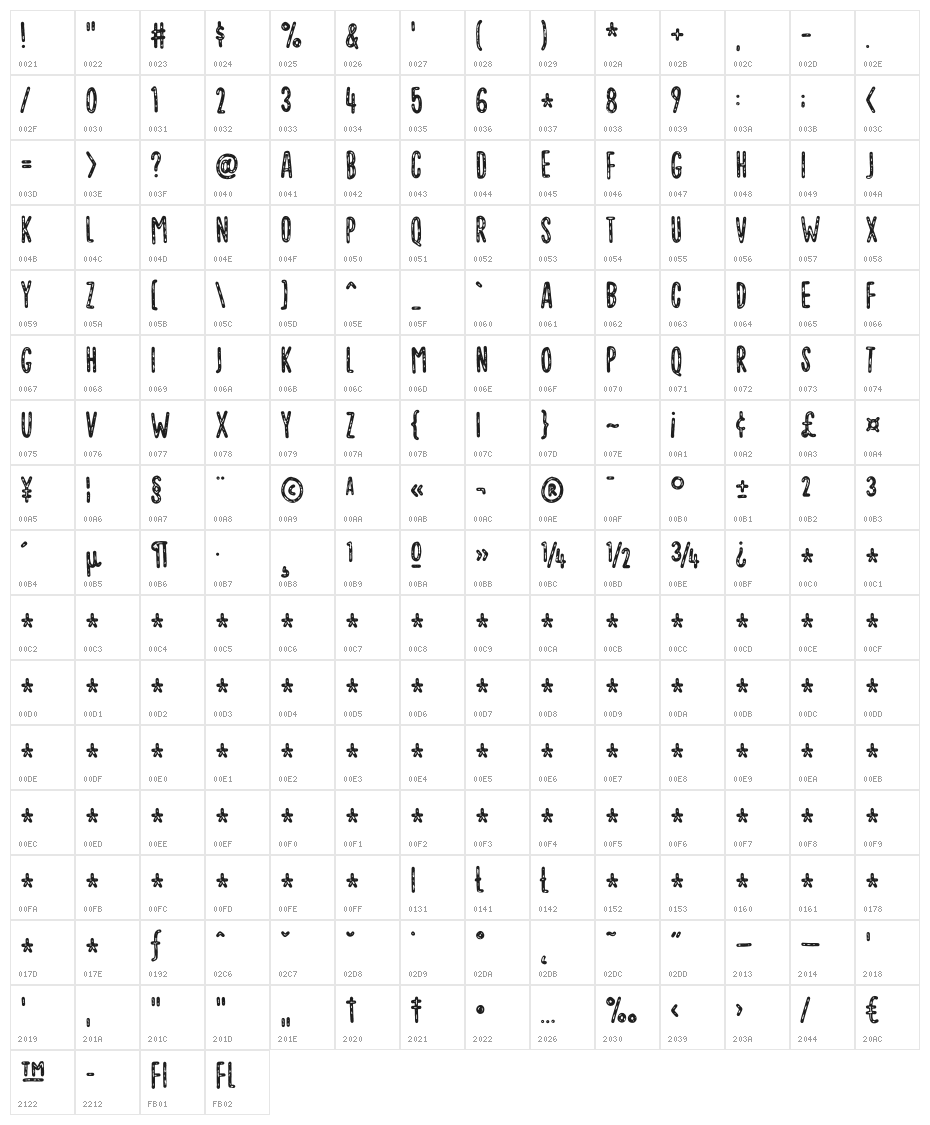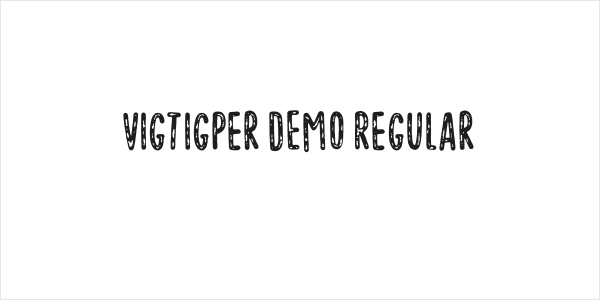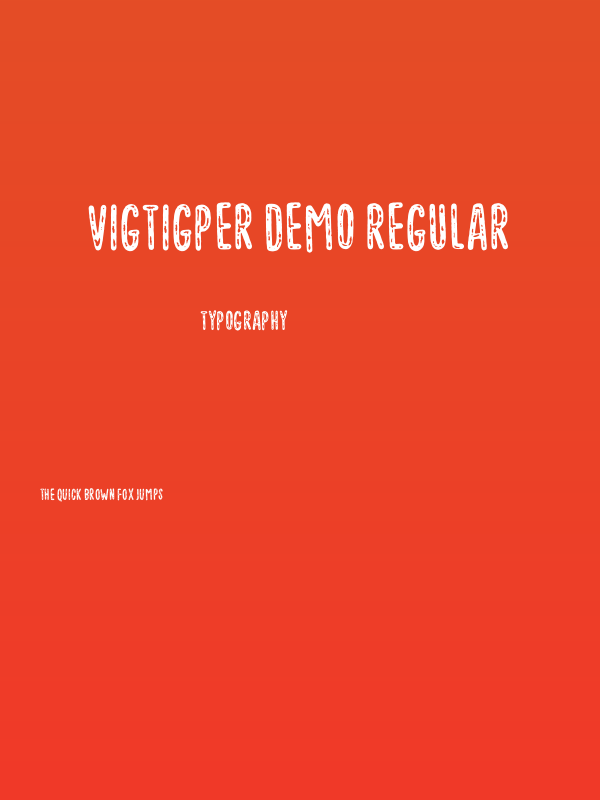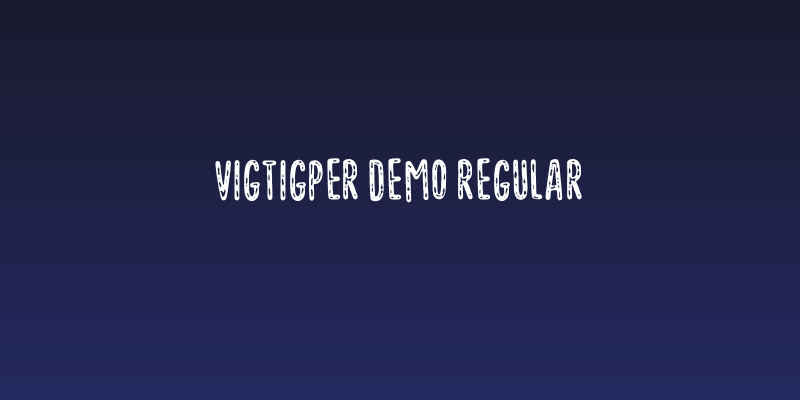
Vigtigper DEMO Regular Font
Vigtigper DEMO Regular Description
This font features a playful and textured design, characterized by its hand-drawn appearance and irregular, distressed edges. The letters are bold and slightly elongated, giving them a unique and eye-catching look. The texture within each character adds a sense of depth and personality, making it ideal for creative and informal projects. The font includes a full set of uppercase and lowercase letters, numbers, and a variety of special characters, all maintaining the same artistic style. Its distinctive appearance makes it suitable for projects that require a fun and engaging visual element.
| Proposed Projects | Ideal for posters, children's books, greeting cards, and creative branding. |